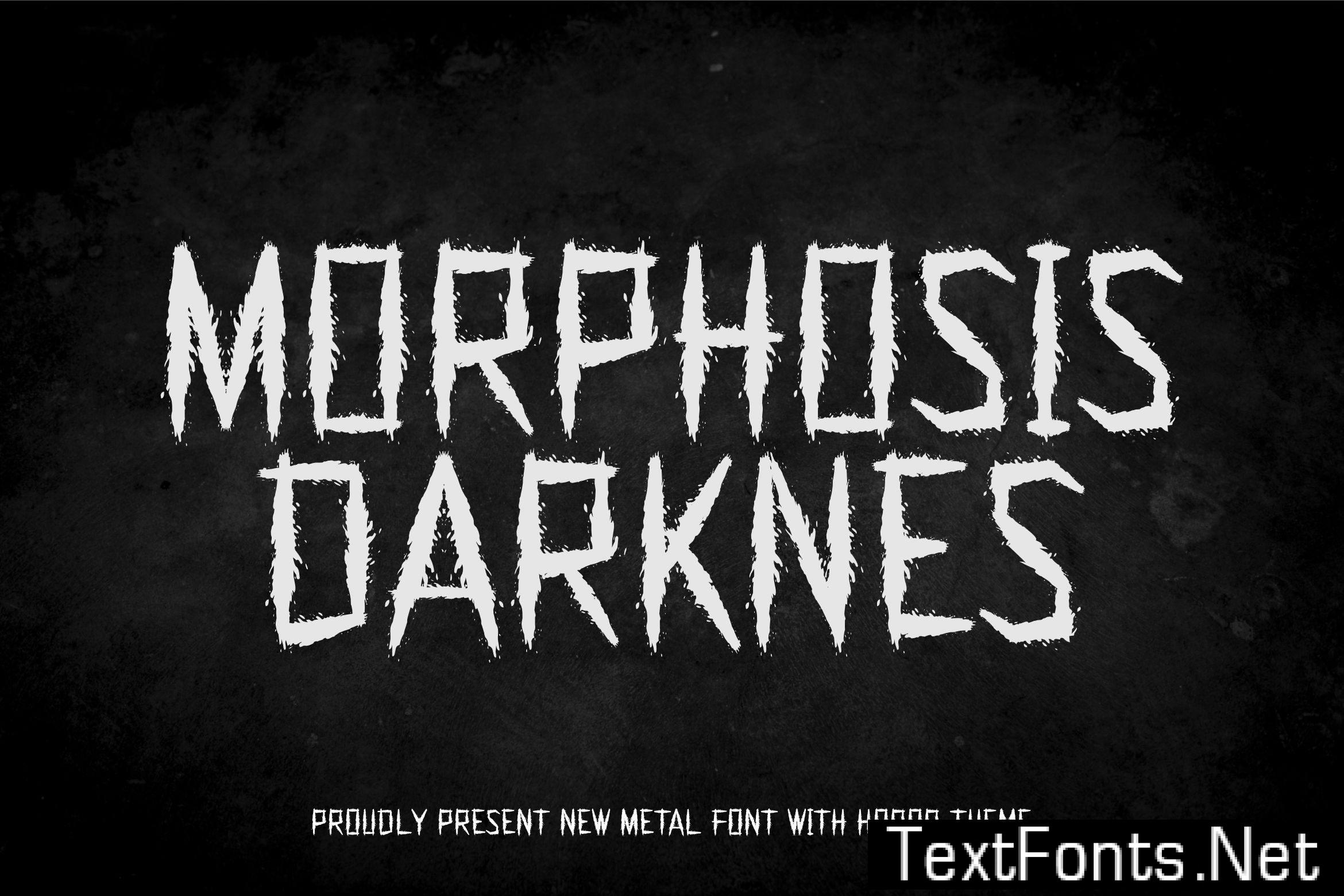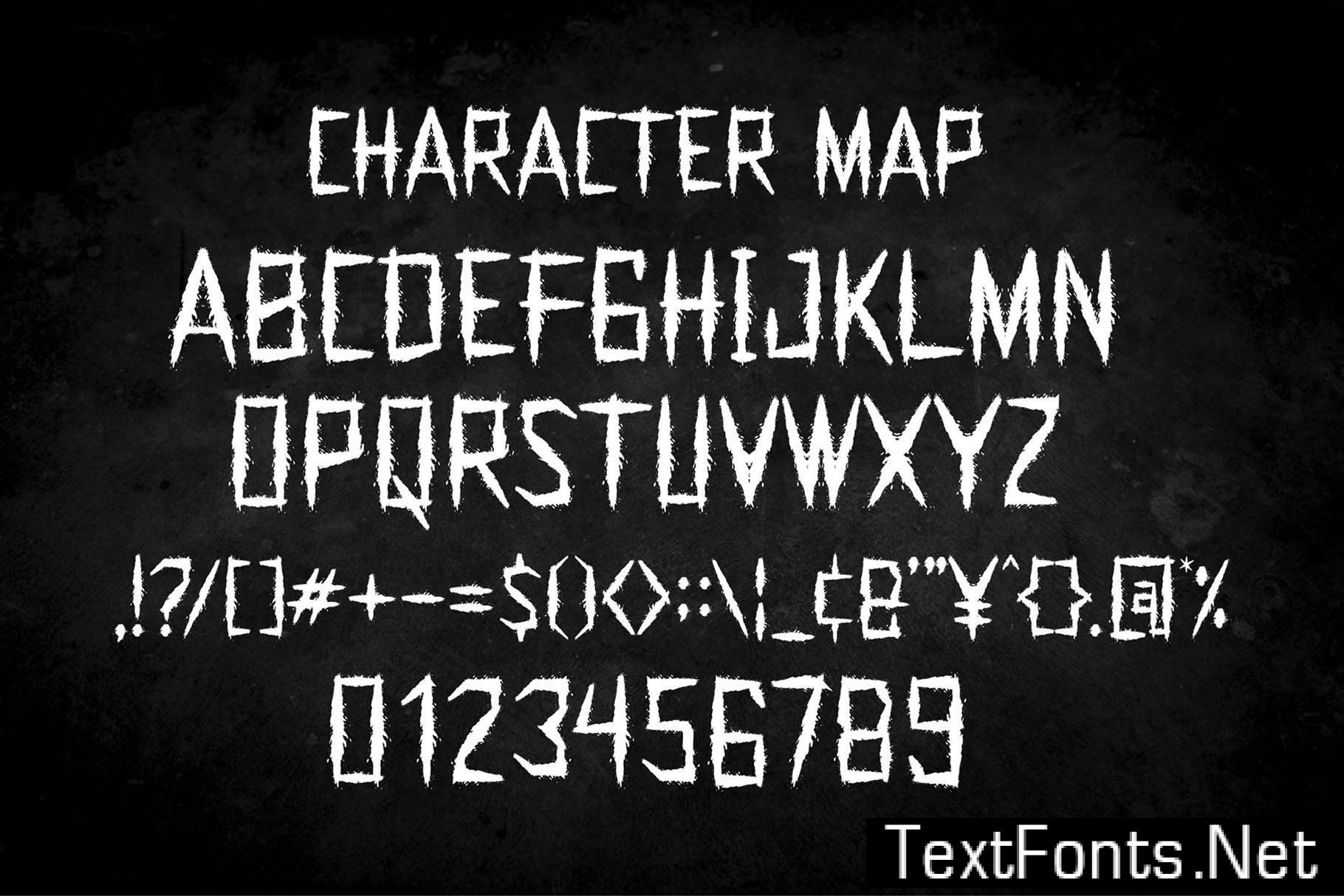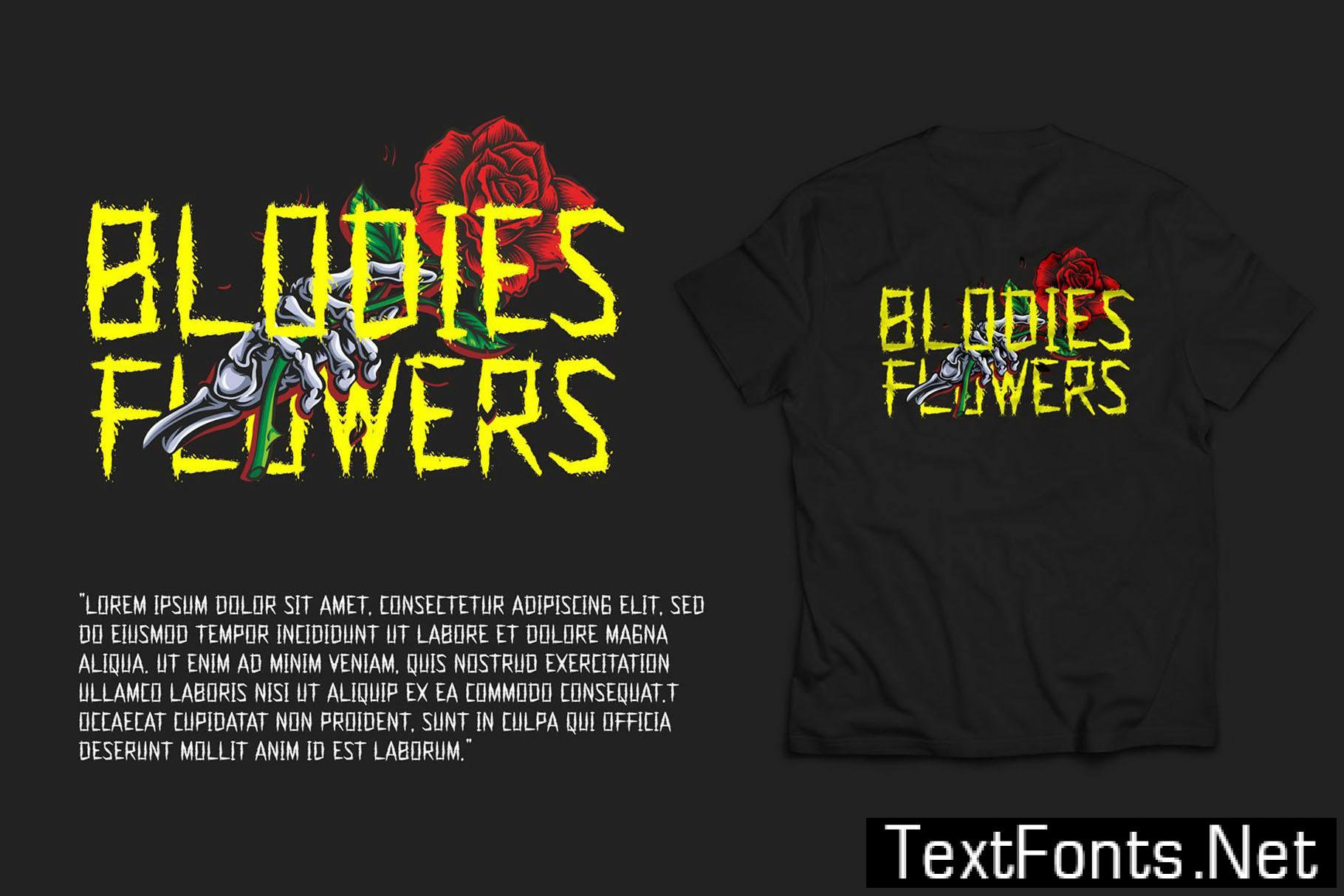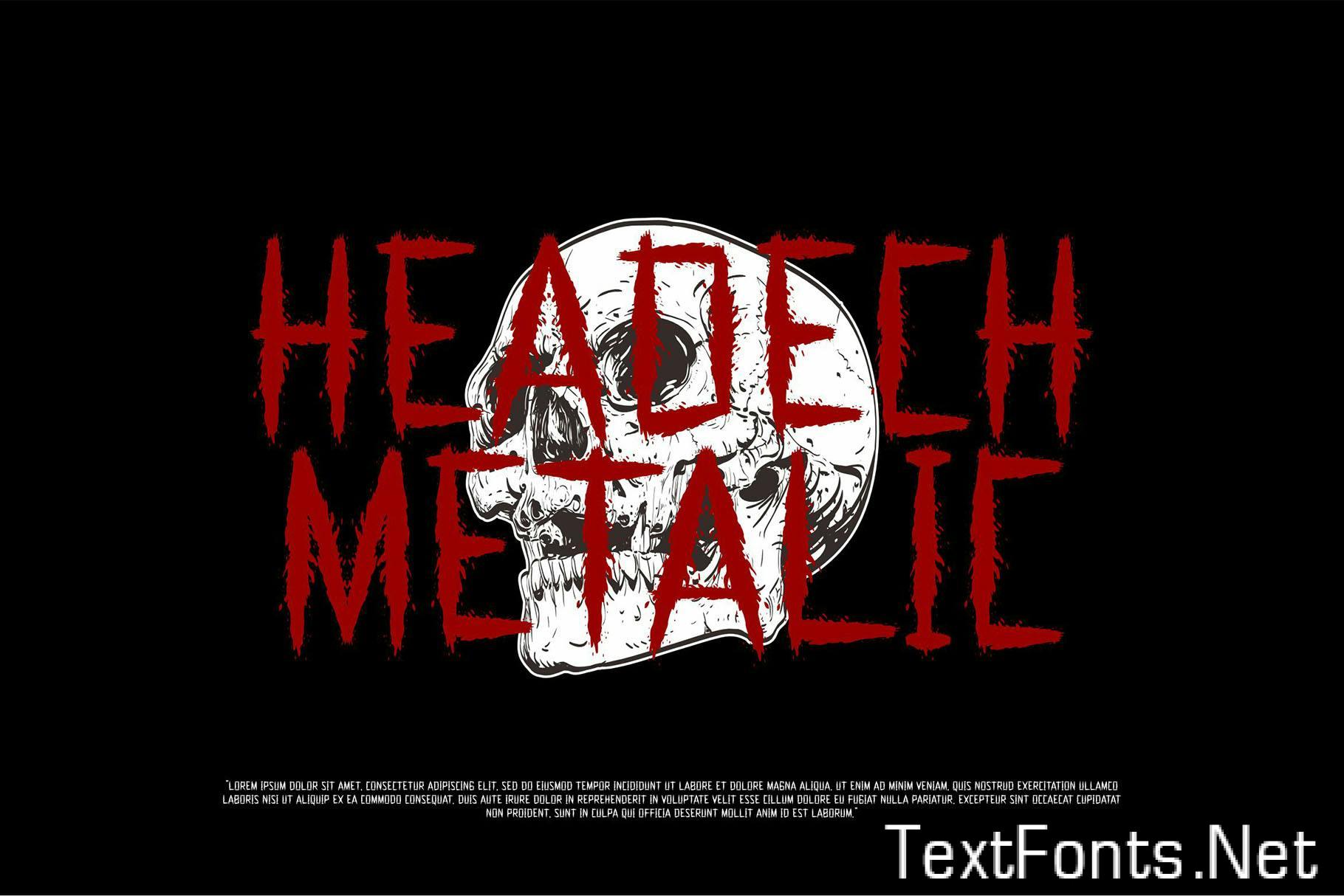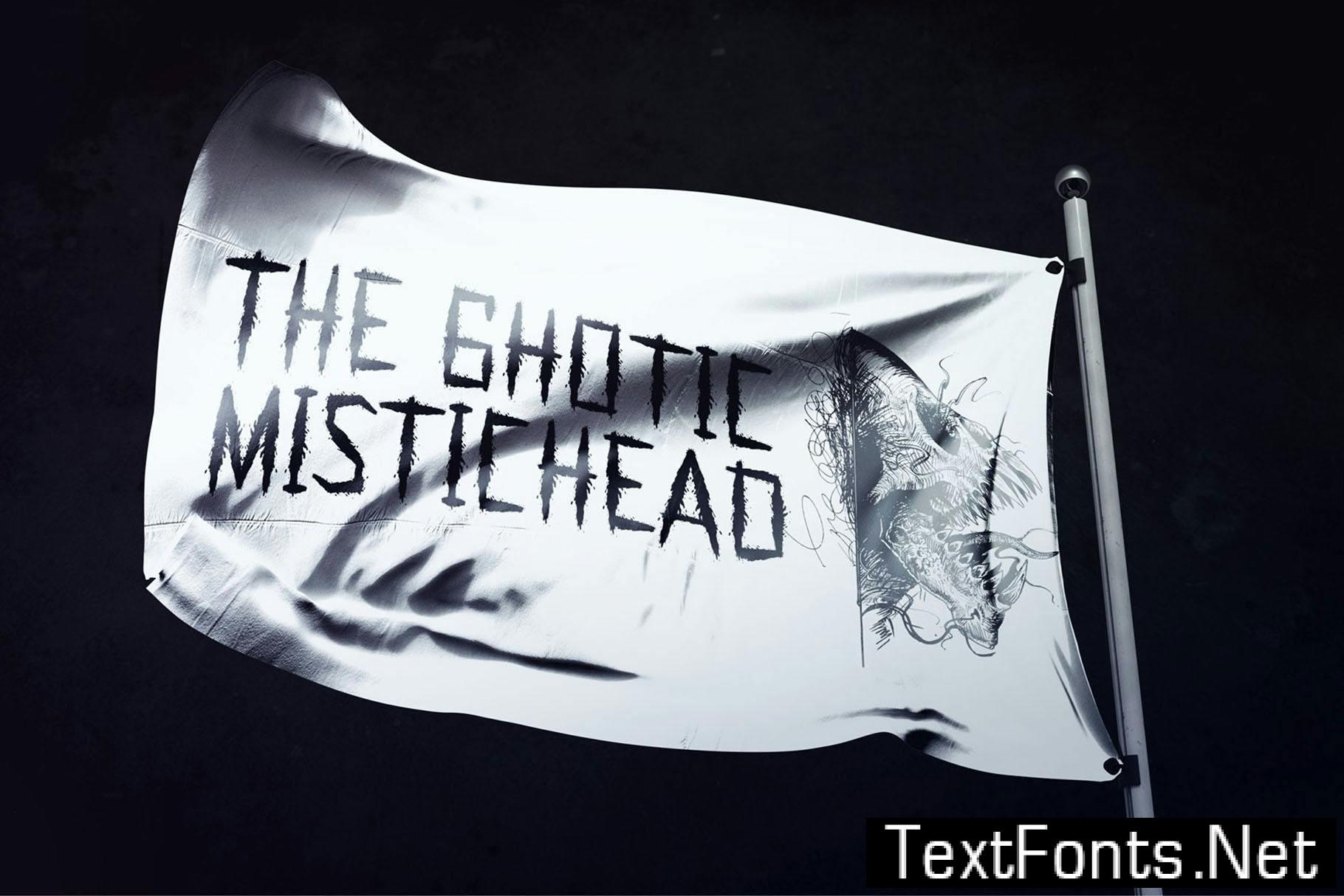
Introducing Morphosis Darknes – Black Metal Font.
Morphosis Darknes is a modern and simple font, best used as a display for headings, logos, branding, magazines, product packaging and invitations.